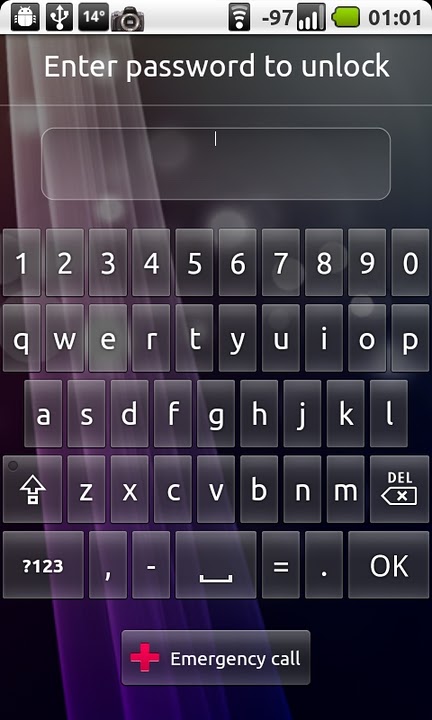
OMG! Reader Nicholas Ipsen dropped by our inbox earlier today to show us some sweet Ubuntu font action in Android.
As you might expect, the new font that Canonical contracted type foundry Dalton Maag to design looks brilliant on Google’s mobile operating system.